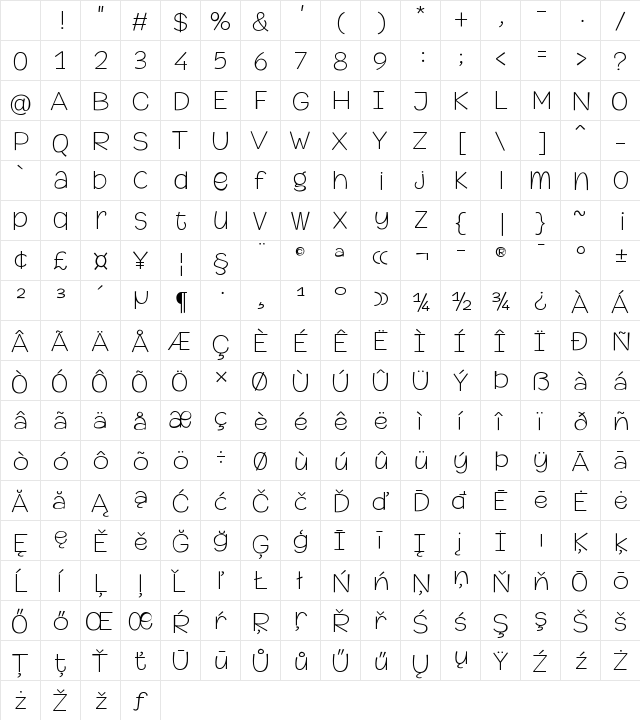
Mythical Garden is a composed and adaptable typeface that performs quietly and consistently across a wide range of design contexts. Its slender proportions lend an understated elegance to any composition.